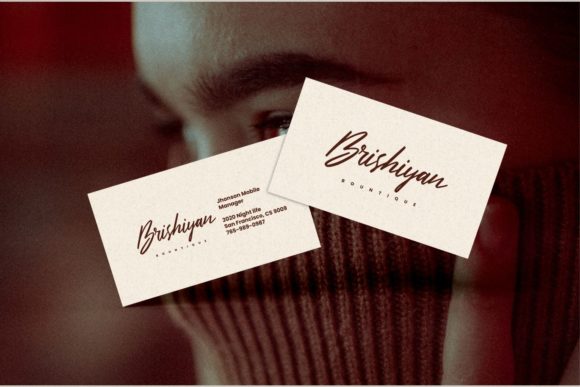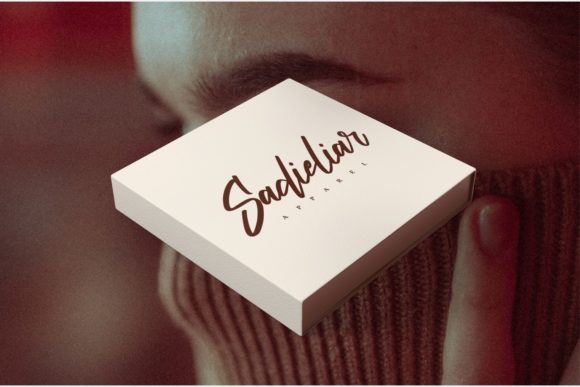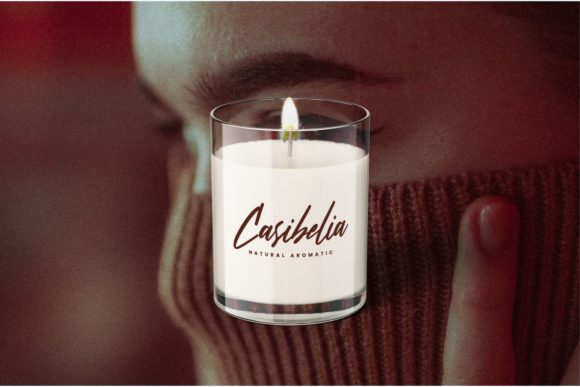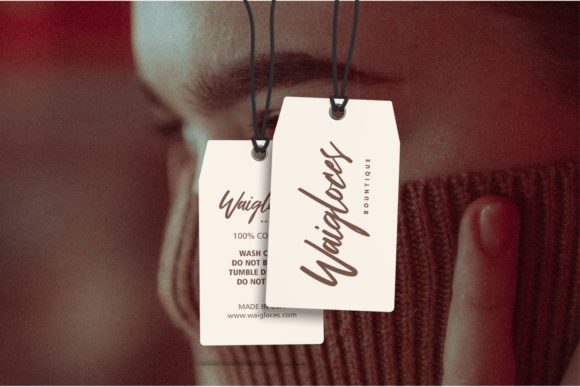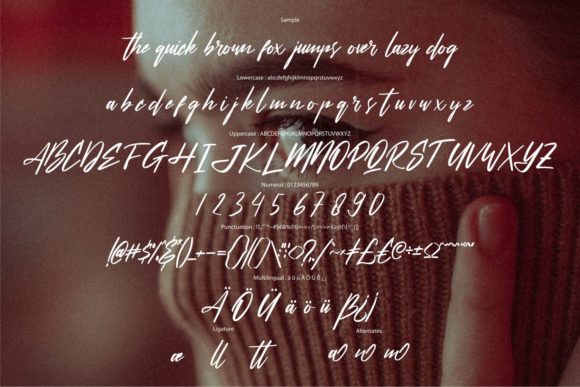
Introduction to Sattelia Font
As a designer, there’s nothing quite like the thrill of bringing a creative project to life. The moment when words and images come together to convey a message, evoke emotions, or tell a story – it’s a feeling like no other. And, let’s be honest, a beautiful font can make all the difference. That’s why we’re excited to introduce you to the Sattelia Font, a stunning handwritten font that will transport your designs to a world of elegance and charm.
With its flowing lines and delicate character, Sattelia Font is perfect for projects that require a touch of romance and whimsy. Whether you’re designing a wedding invitation, a love letter, or a brand identity, this font is sure to add a level of sophistication and charm that will leave a lasting impression.
Key Features of Sattelia Font
- High-quality design resource ideal for creative projects, including digital art, graphic design, and web design.
- Designed to be scalable, making it suitable for use in various sizes and resolutions, from small text to large headlines.
- Unique characteristics include a modern, sleek aesthetic and a versatile design that can be used in a variety of creative contexts.
Honest Review: Sattelia Font
I recently had the chance to work with the Sattelia Font for a creative project and I must say, it was a pleasant experience. As a designer, I’m always on the lookout for high-quality design resources, and this font definitely fits the bill.
- ✨ The font is incredibly versatile and works well for a variety of design projects, from logos to digital interfaces.
However, I did encounter a few limitations while using the Sattelia Font. ⚠️ For one, the font can be a bit too ornate for some designs, and may require some careful balancing to avoid overwhelming the viewer. Additionally, the font may not be compatible with all operating systems, so it’s worth doing a test run before committing to a project.
Overall, I was impressed with the Sattelia Font and would definitely consider using it again for future design projects. It’s a great addition to any designer’s toolkit, and I appreciate the transparency and versatility it offers.
The Sattelia Font is suitable for a wide range of design projects, including business cards, brochures, posters, and social media graphics. Its high-quality design and transparent background feature make it perfect for creating visually appealing and professional-looking designs.